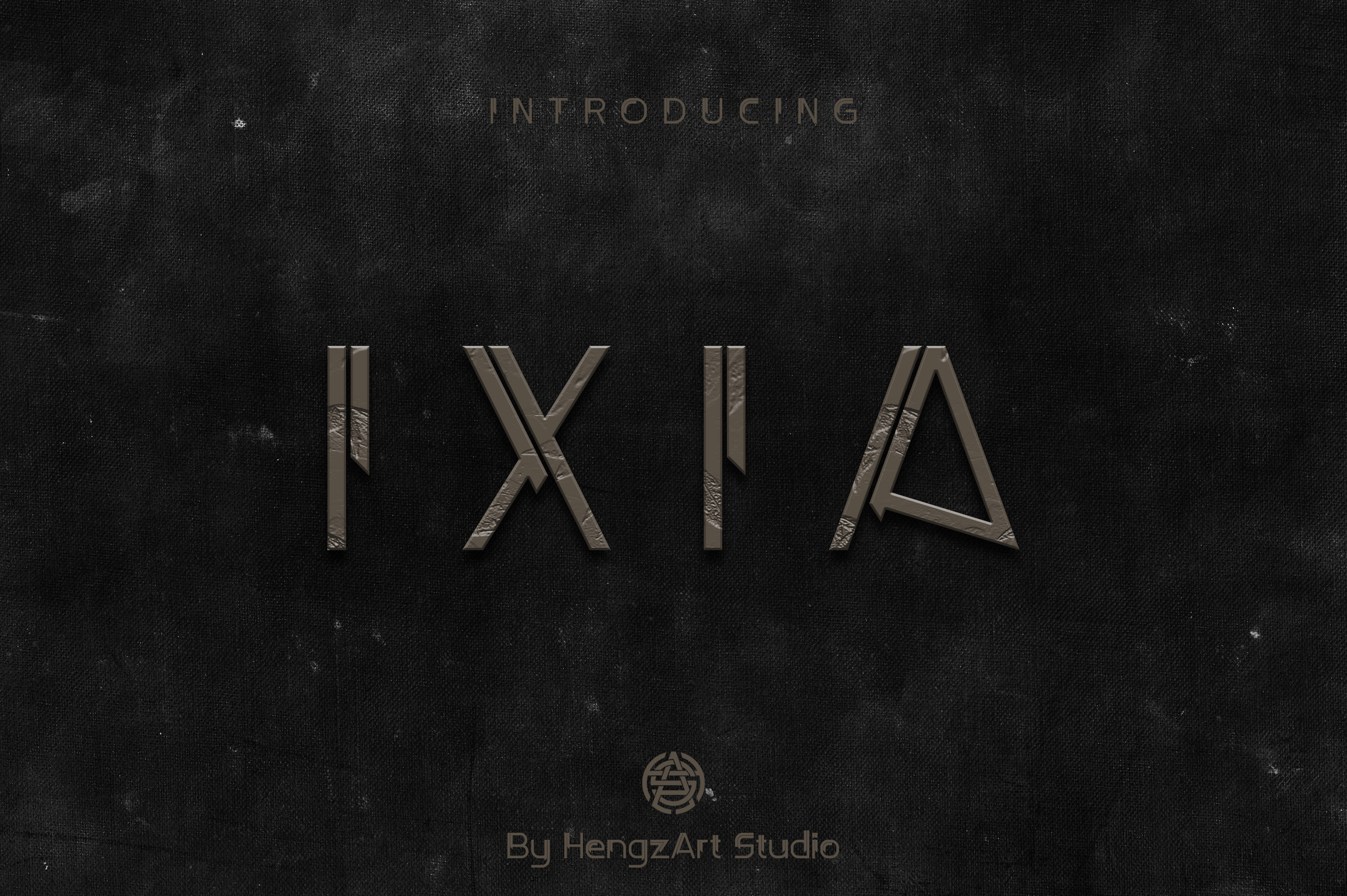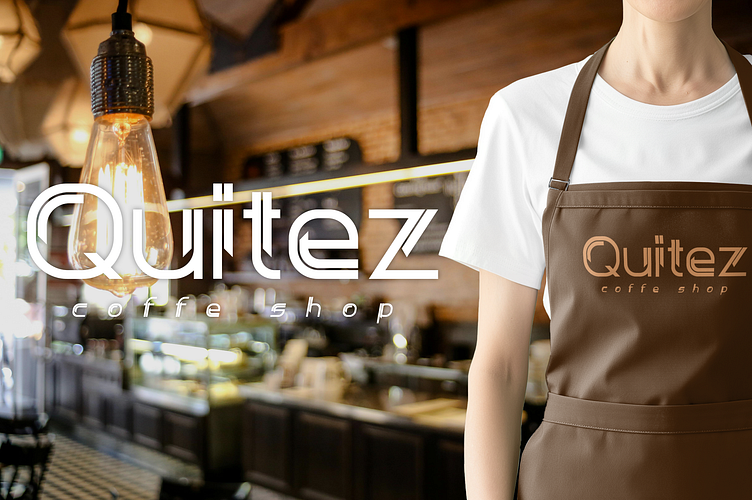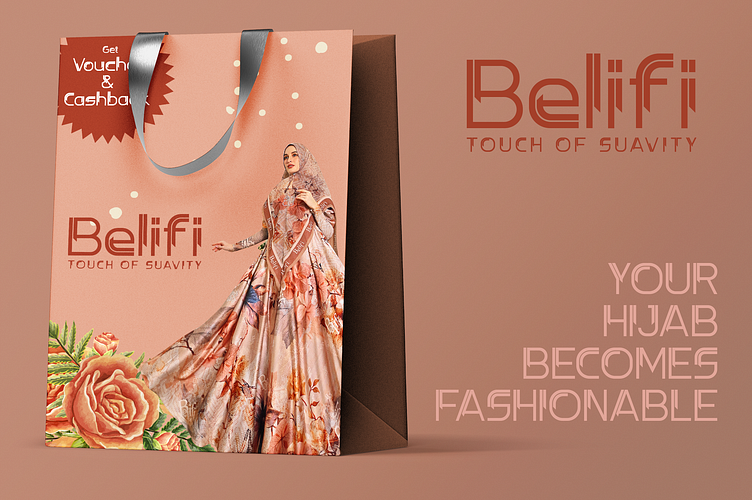
Ixia - Unique Font
IXIA is a bold and futuristic display font with a striking, geometric structure that channels a high-tech and industrial edge.
With sharp angular lines, carved textures, and a stone-cut aesthetic, this font evokes strength and mystery, perfect for sci-fi themes, tech branding, video games, cinematic titles, branding, logos, product packaging, invitation, qoutes, t-shirt, jersey, label poster etc, and many more.
Its uniqueness lies in its blend of ancient symbolism and modern minimalism.